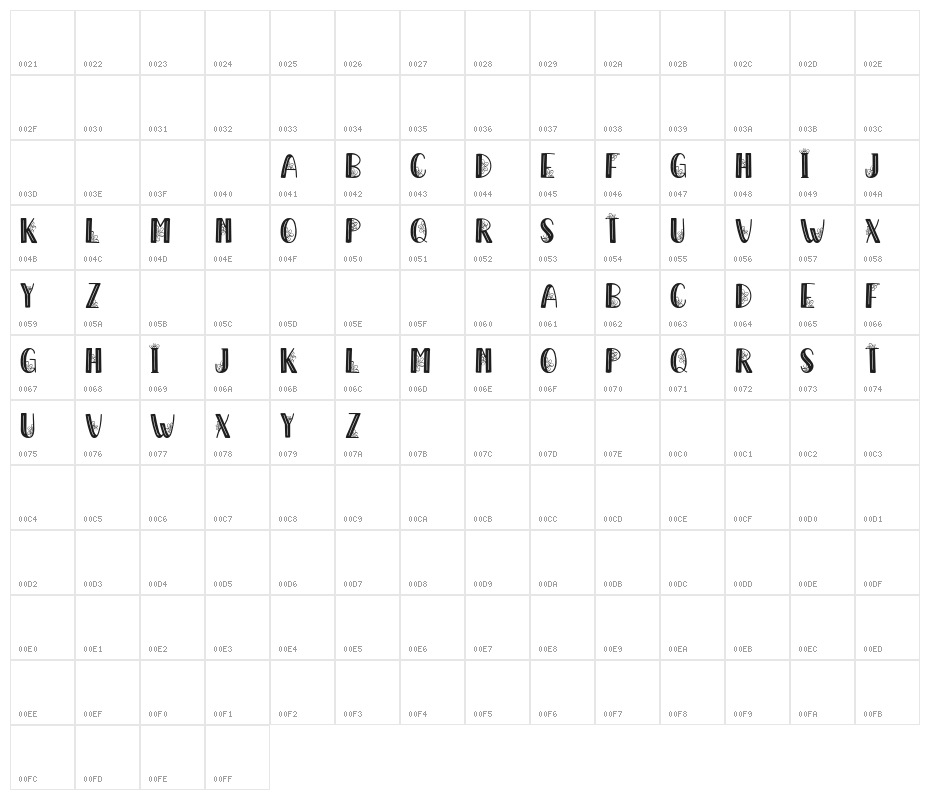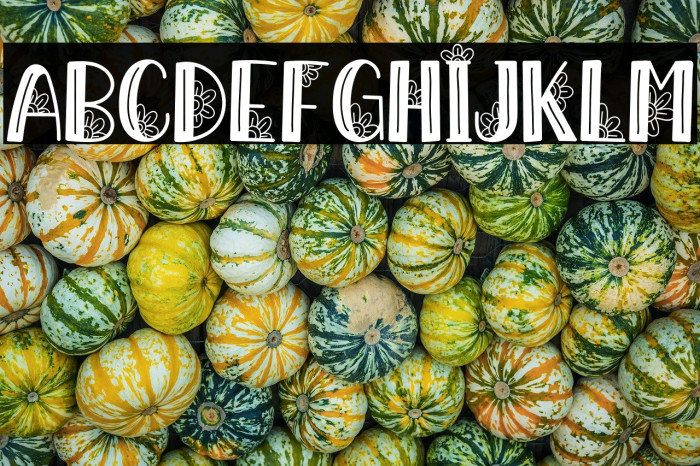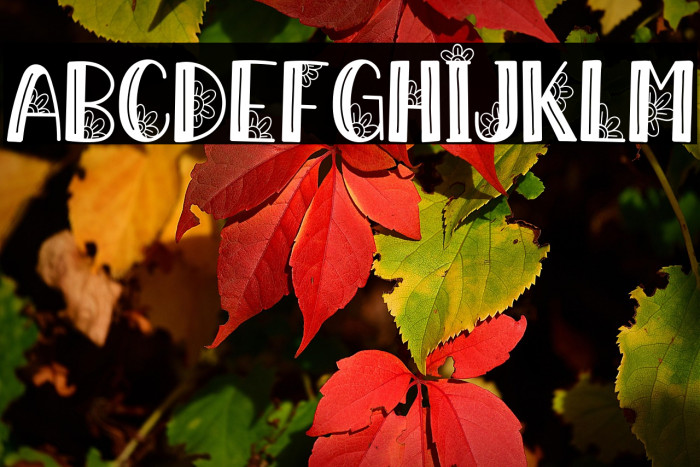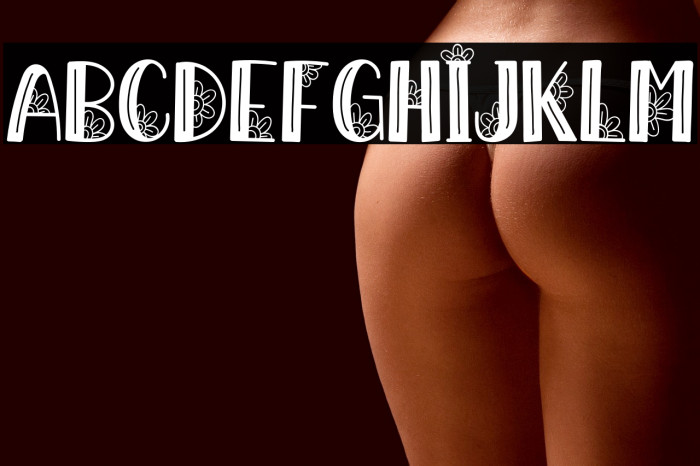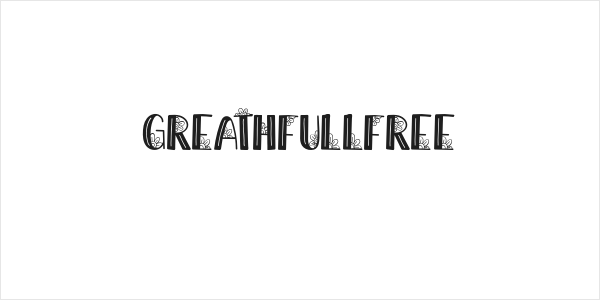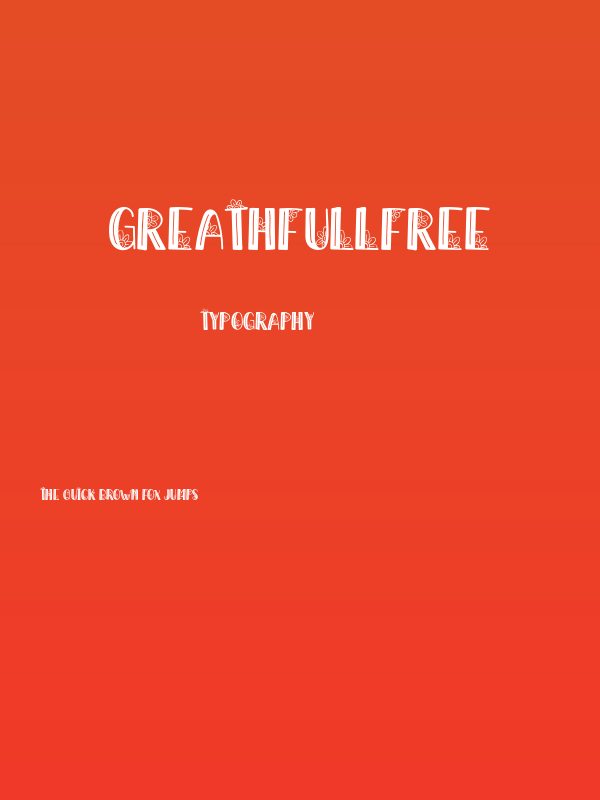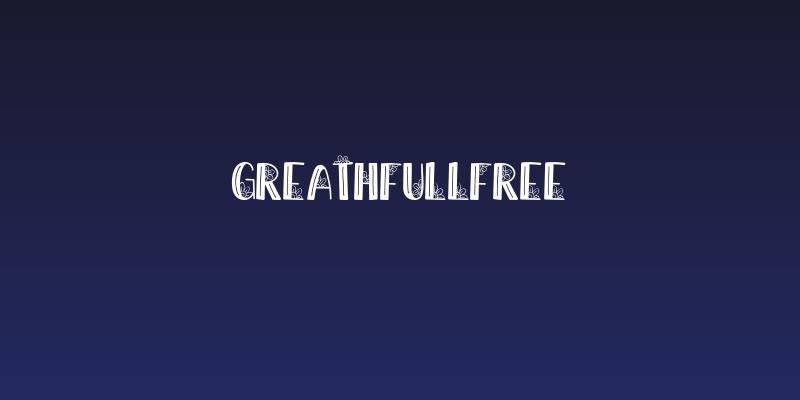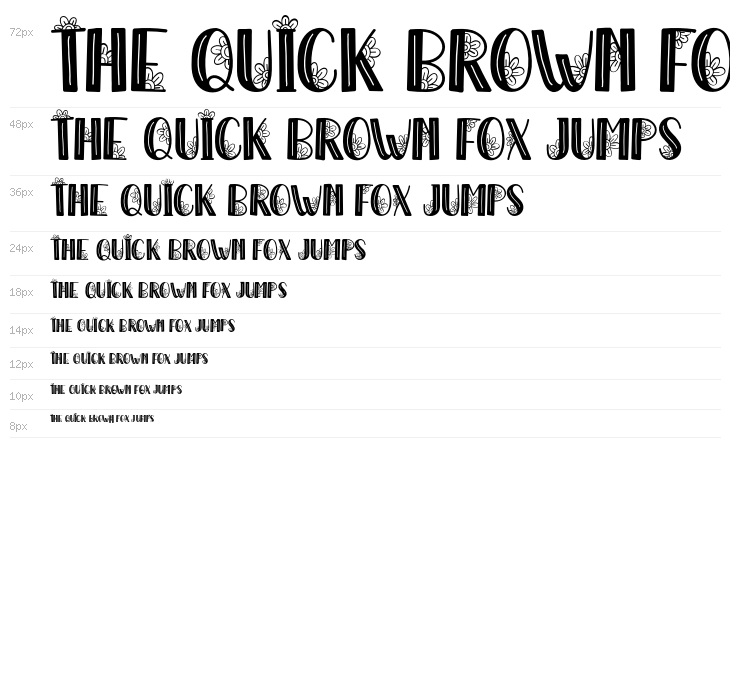
GreathfullFREE Font
GreathfullFREE Description
This playful and decorative font features bold, uppercase letters adorned with charming floral elements. Each character is uniquely embellished with flowers, adding a whimsical and artistic touch. The font maintains a consistent boldness throughout, with a slightly condensed width that enhances its decorative appeal. The floral designs are integrated seamlessly into the letterforms, making it ideal for creative projects that require a touch of nature-inspired elegance. The overall style is both modern and decorative, suitable for a variety of design applications.
| Use Case | Headlines, Logos, Decorative Text |
| Proposed Projects | Ideal for greeting cards, invitations, posters, and any project requiring a whimsical, nature-inspired aesthetic. |